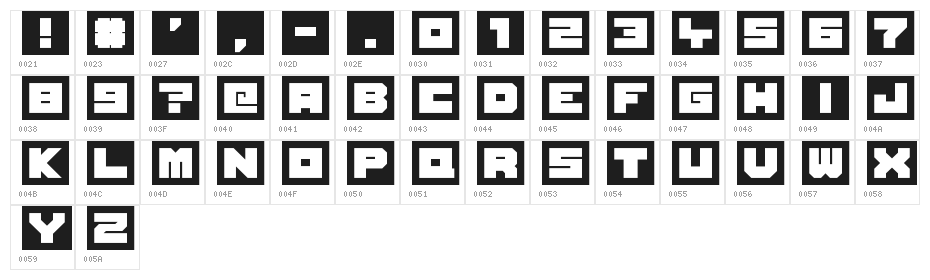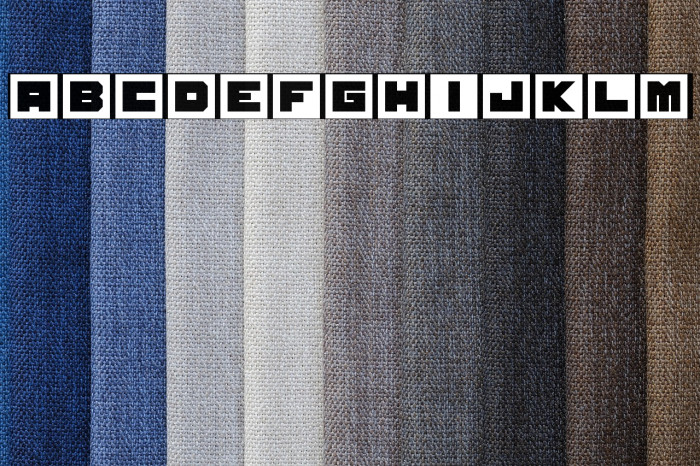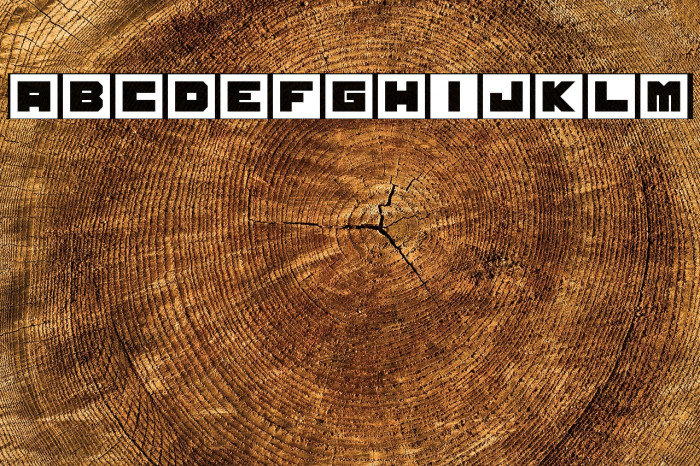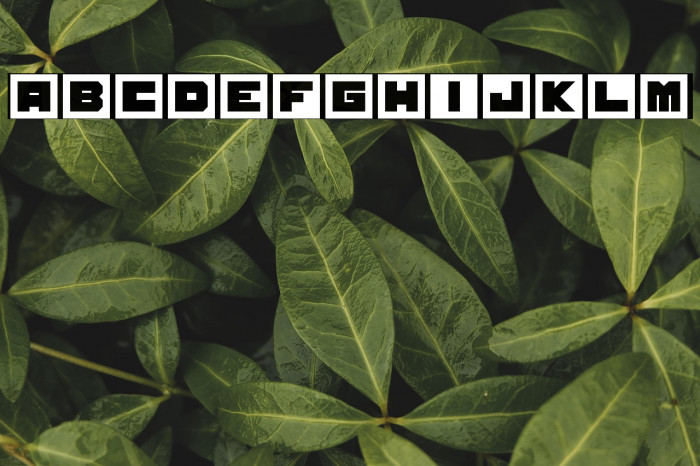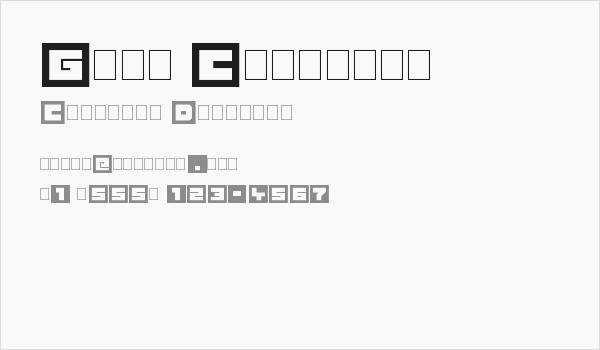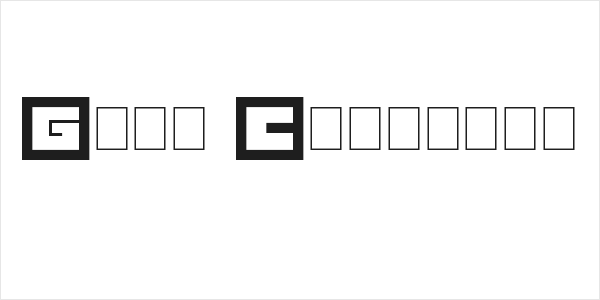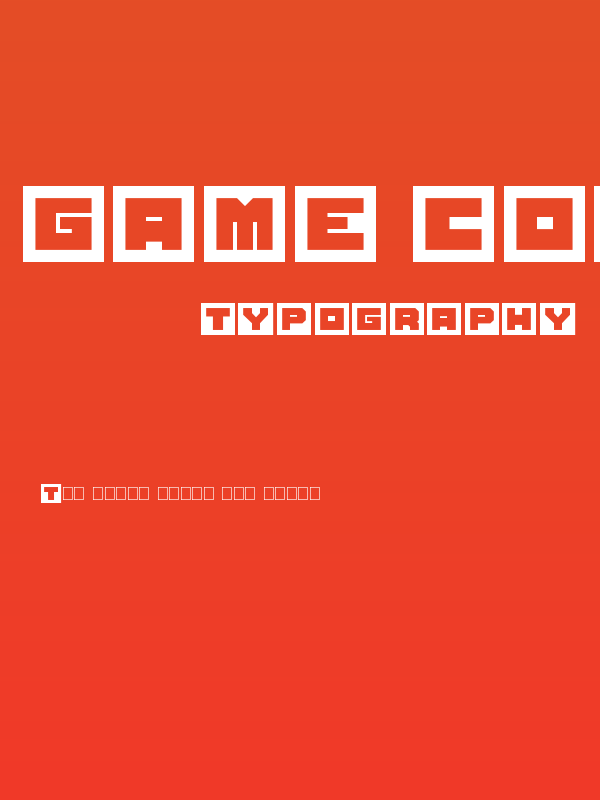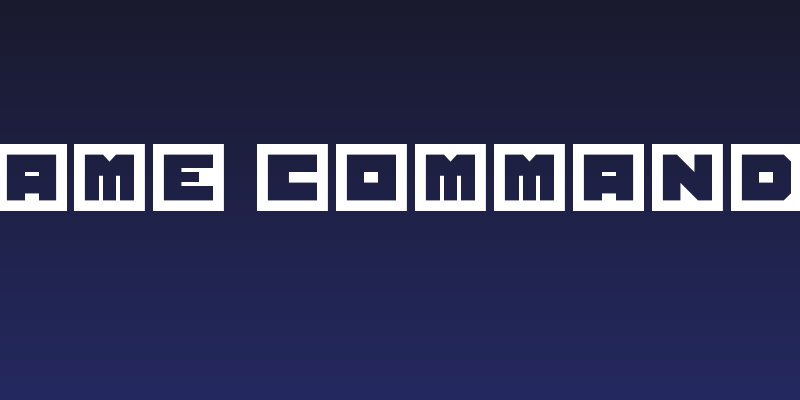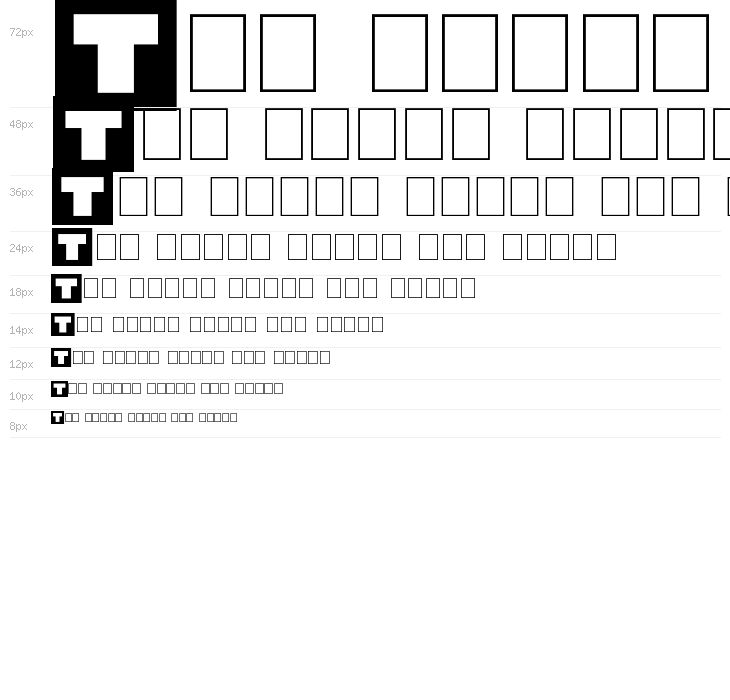
Game Commands Font
Game Commands Description
This font features a bold, blocky design with a strong geometric influence. Each character is enclosed within a square, creating a uniform and structured appearance. The letters and numbers are highly stylized, with sharp angles and a distinct, futuristic aesthetic. The use of negative space within the characters adds to the visual impact, making it ideal for attention-grabbing designs. The font's design is reminiscent of retro video game graphics, providing a nostalgic yet modern feel.
| Proposed Projects | Ideal for video game titles, tech-themed posters, and retro-inspired designs. |